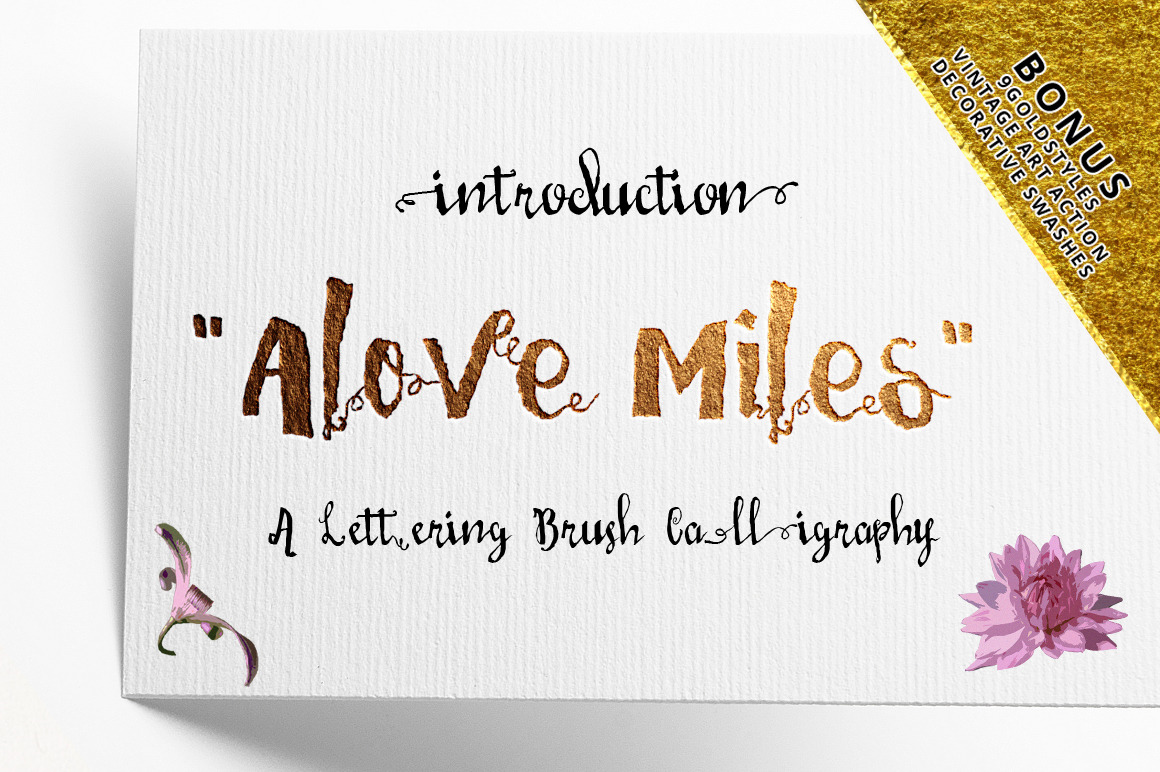
Love Mile Typeface
This font from Hand Made with Brush Paint, Suitable for design, element design, wedding, event, t-shirt, logo, badges, sticker, and awesome work, etc...
Combination alternative ligature fonts
Bonus Swashes And Decorative
Modern and Authentic Typeface
Unique style fonts